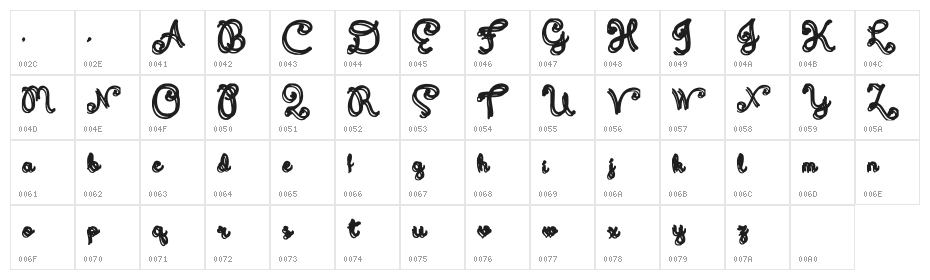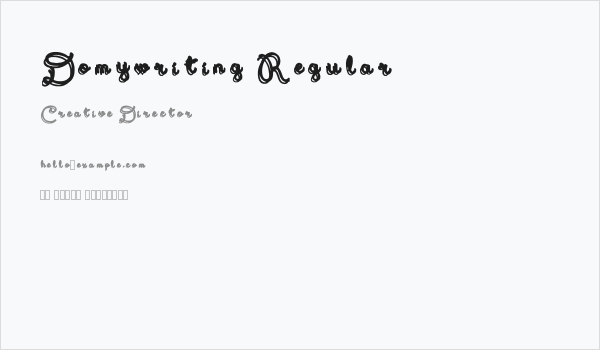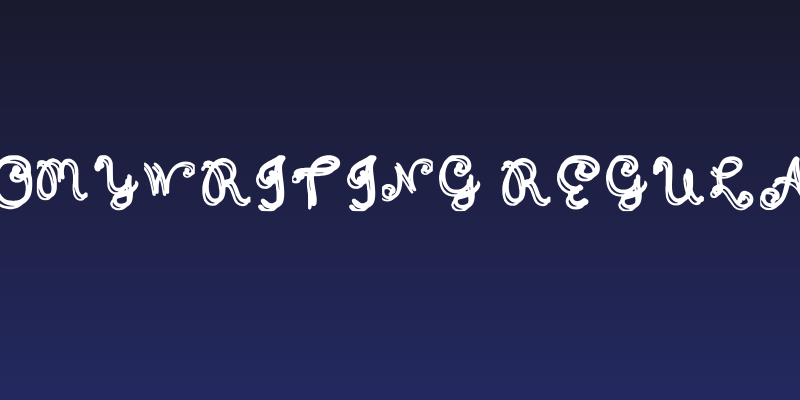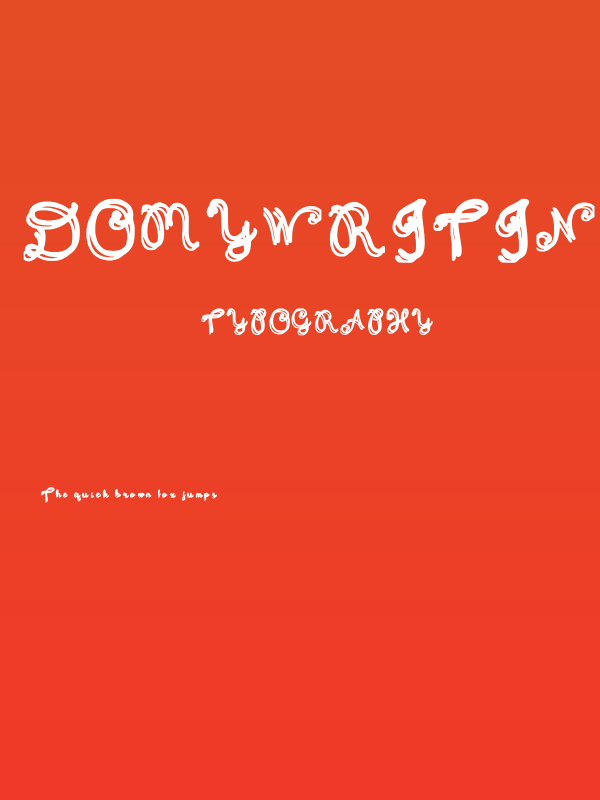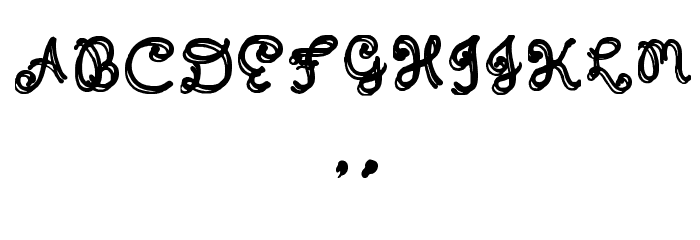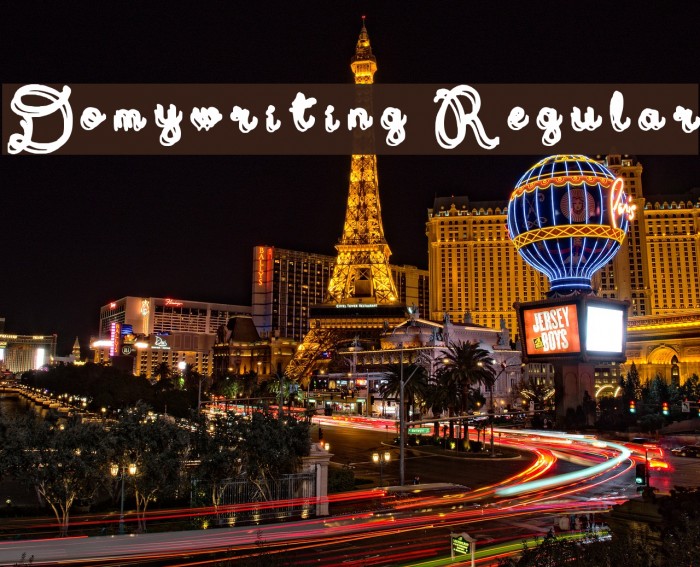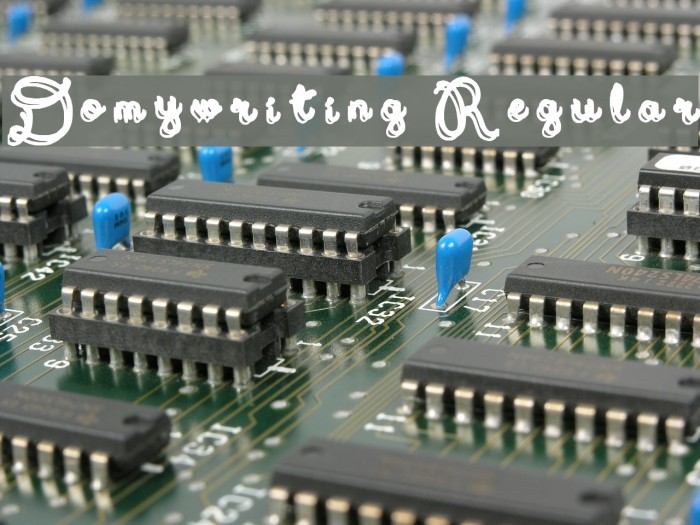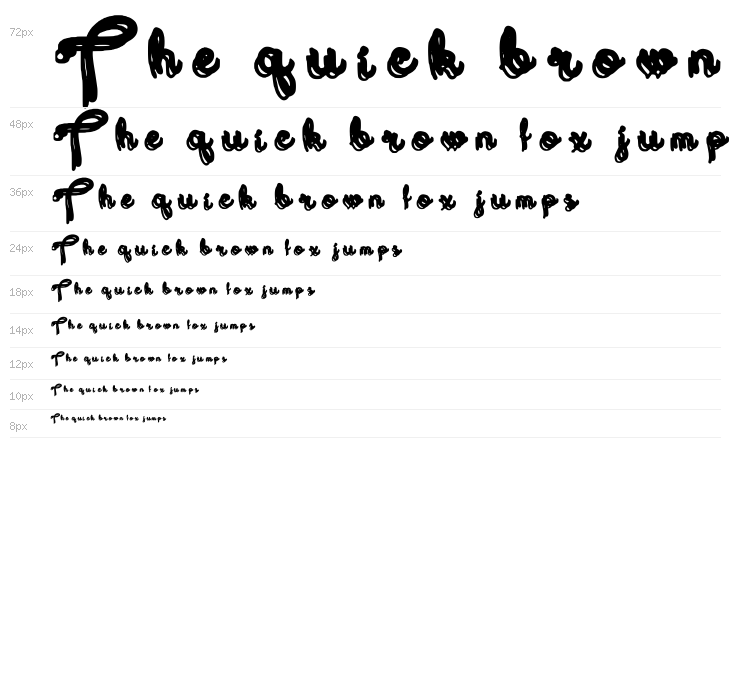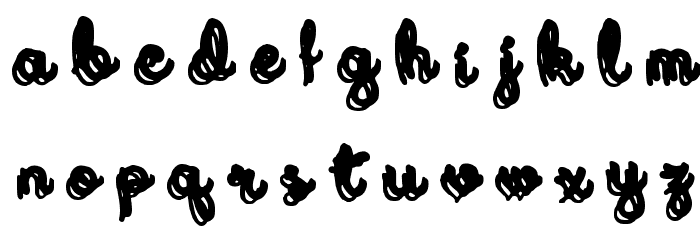
Domywriting Regular Font
Domywriting Regular Description
This font features an ornate and decorative style with intricate swirls and loops that give it a whimsical and artistic appearance. The characters are bold and have a high contrast between thick and thin strokes, enhancing their visual impact. The uppercase and lowercase letters maintain a consistent design theme, with each letter exhibiting unique flourishes that add to the overall decorative feel. The numbers and special characters are equally embellished, ensuring a cohesive look across all glyphs. This font is ideal for projects that require a touch of elegance and creativity.
| Use Case | Headlines, Logos, Artistic projects |
| Proposed Projects | Perfect for wedding invitations, greeting cards, artistic posters, and branding that requires a whimsical touch. |